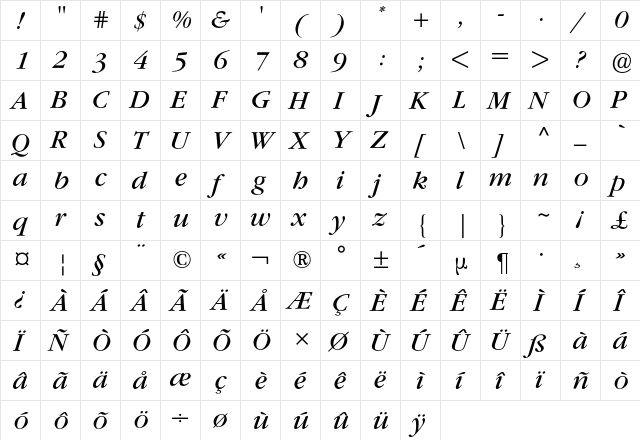
Garamond ITC BQ Regular
Design Context for Garamond ITC BQ Typeface
Garamond ITC BQ offers clean, dependable letterforms without strong stylistic allegiance, making it a practical choice for designers who need flexibility.